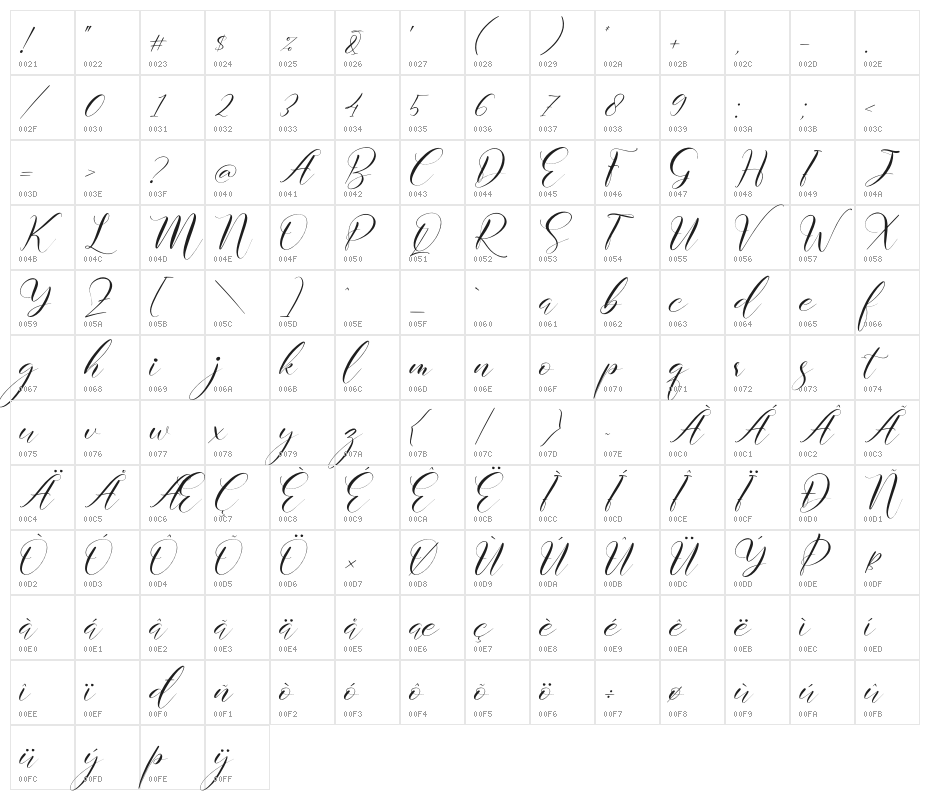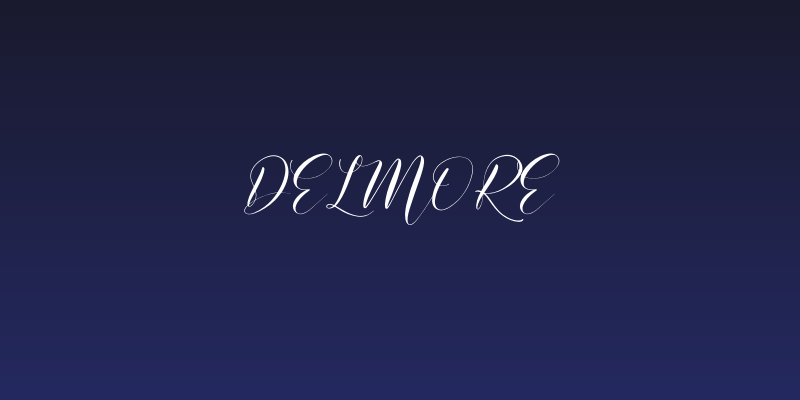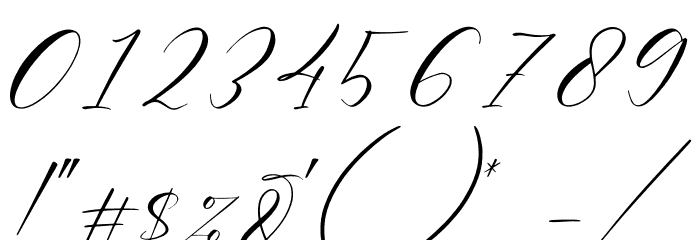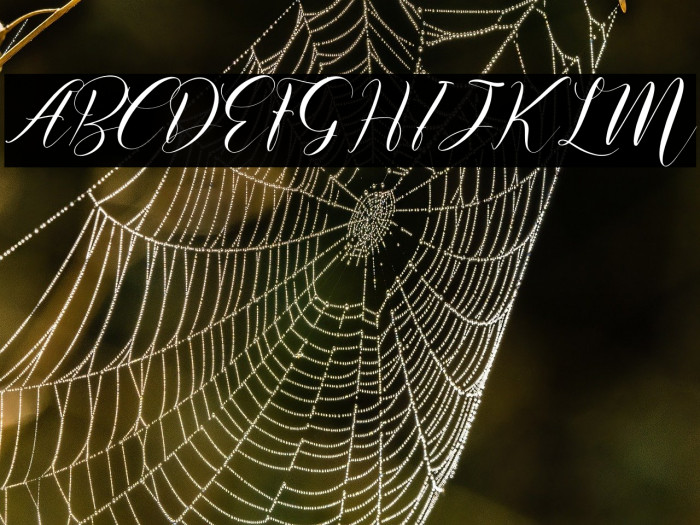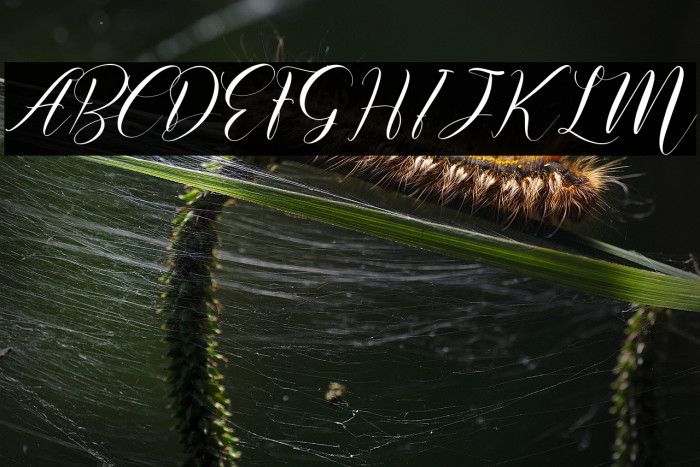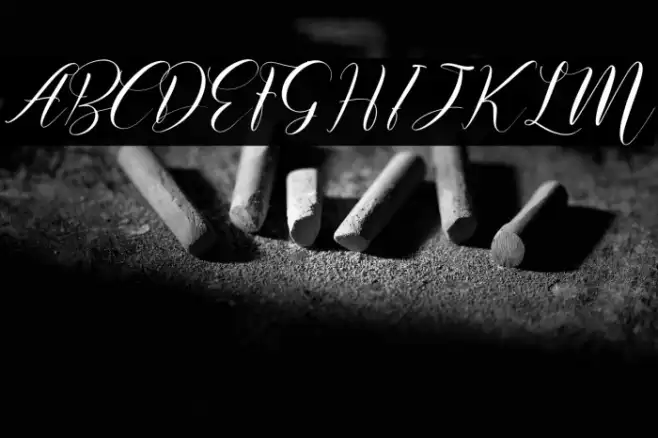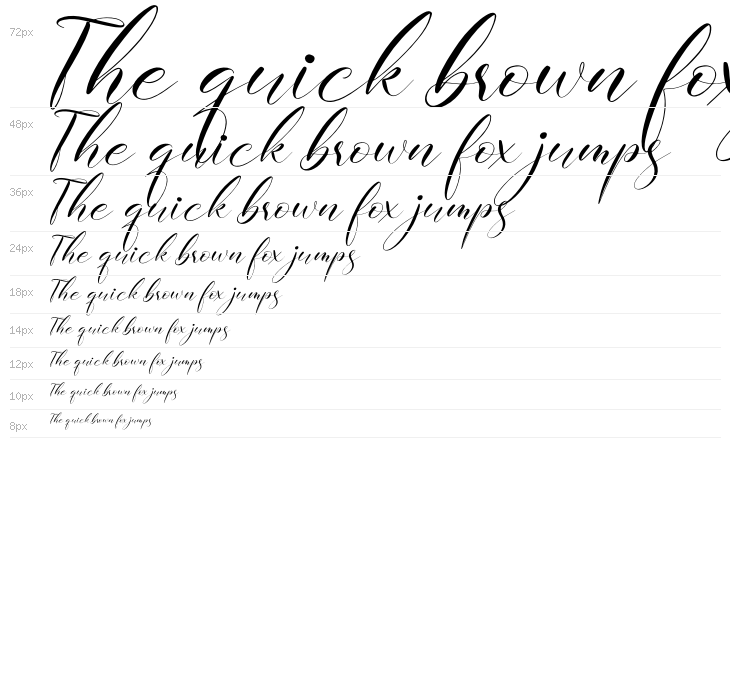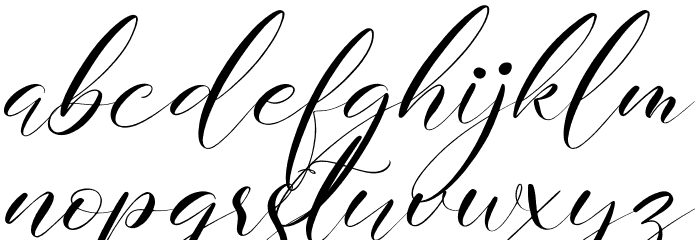
Delmore Font
Delmore Description
This font exudes elegance and sophistication with its flowing, cursive script style. The characters are gracefully connected, featuring delicate loops and swashes that add a sense of movement and fluidity. The uppercase letters are particularly ornate, with intricate flourishes that enhance their decorative appeal. The lowercase letters maintain a consistent style, complementing the uppercase with their own subtle embellishments. The numerals and special characters are designed to match the overall aesthetic, ensuring a cohesive look across all text. This font is perfect for projects that require a touch of class and refinement.